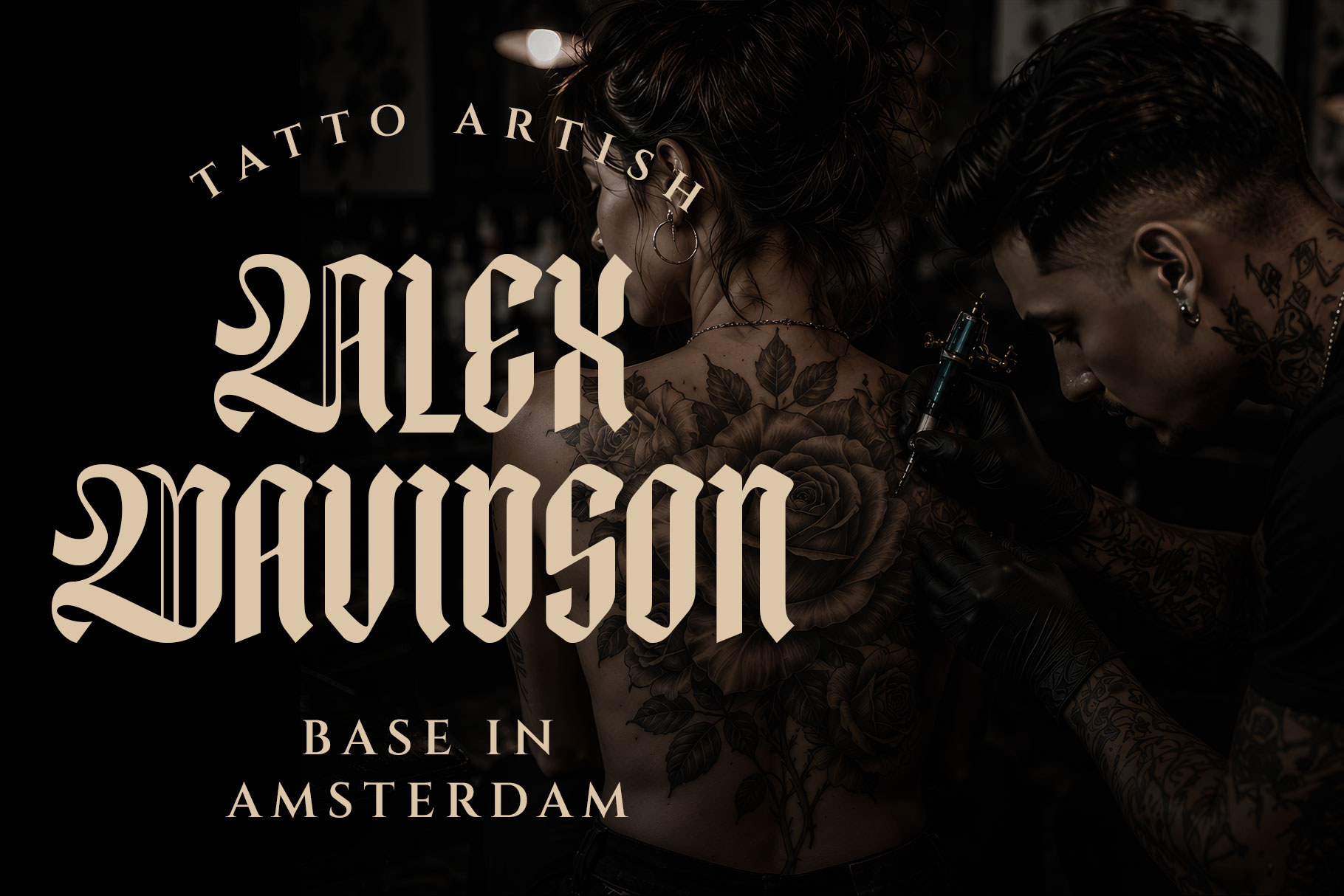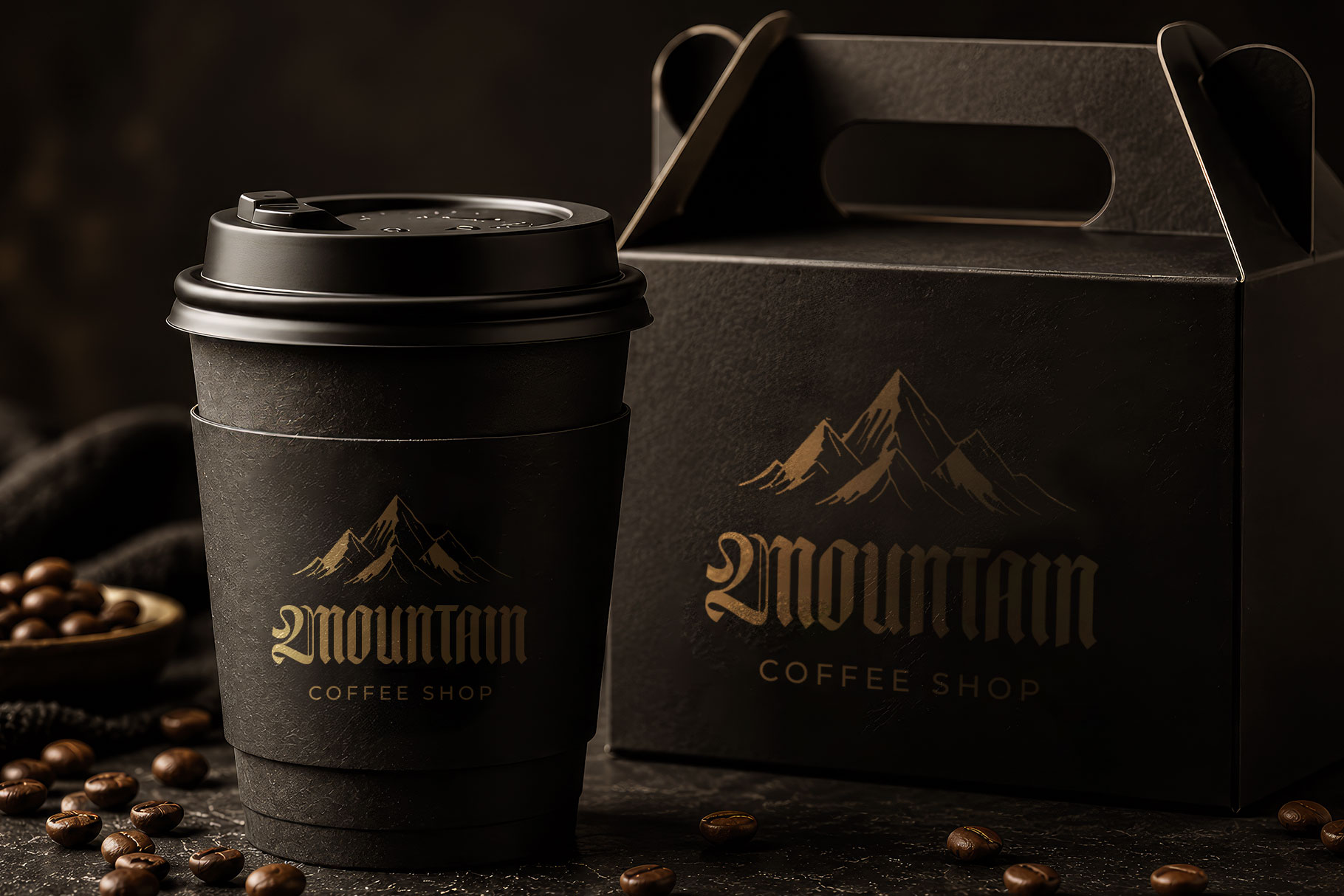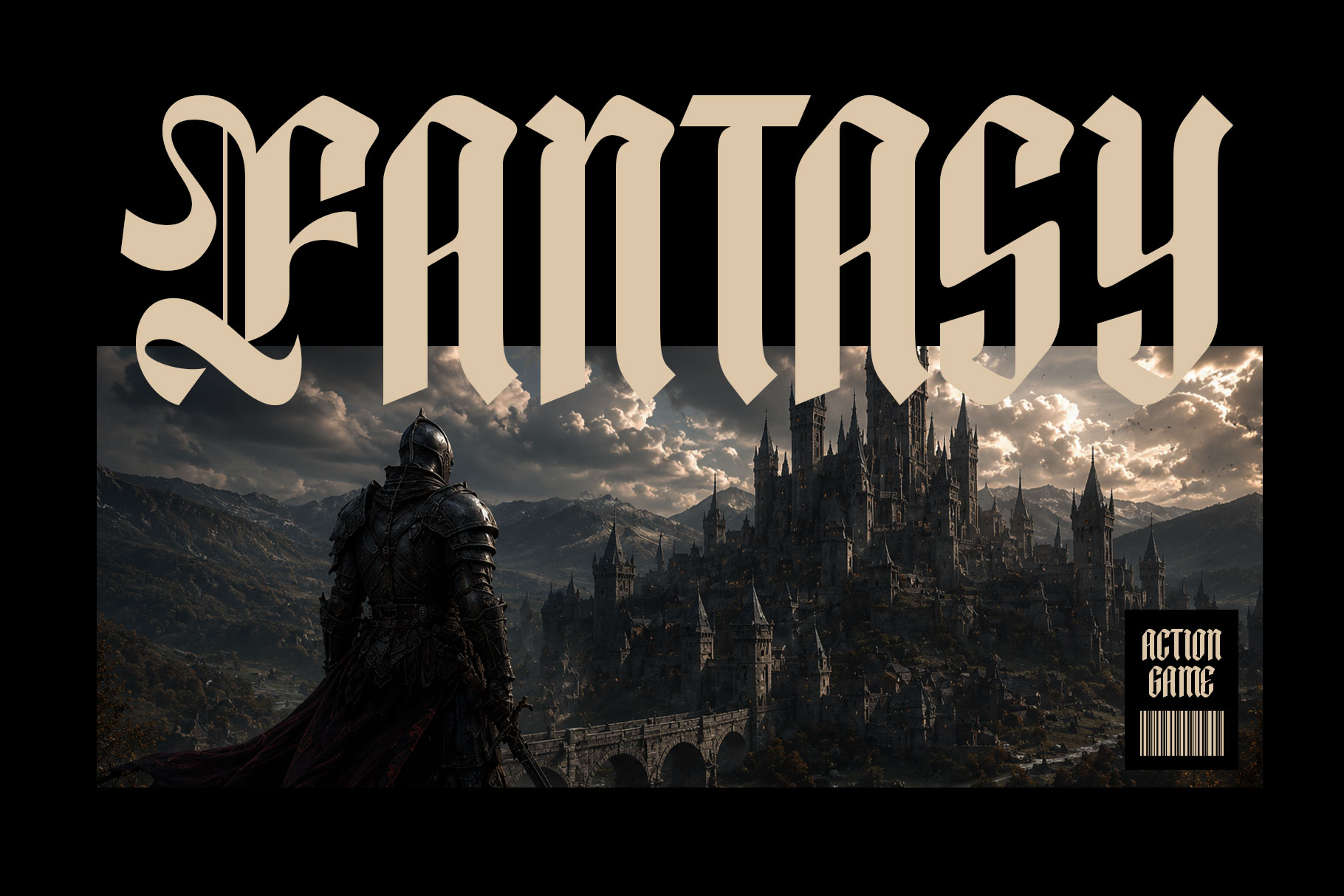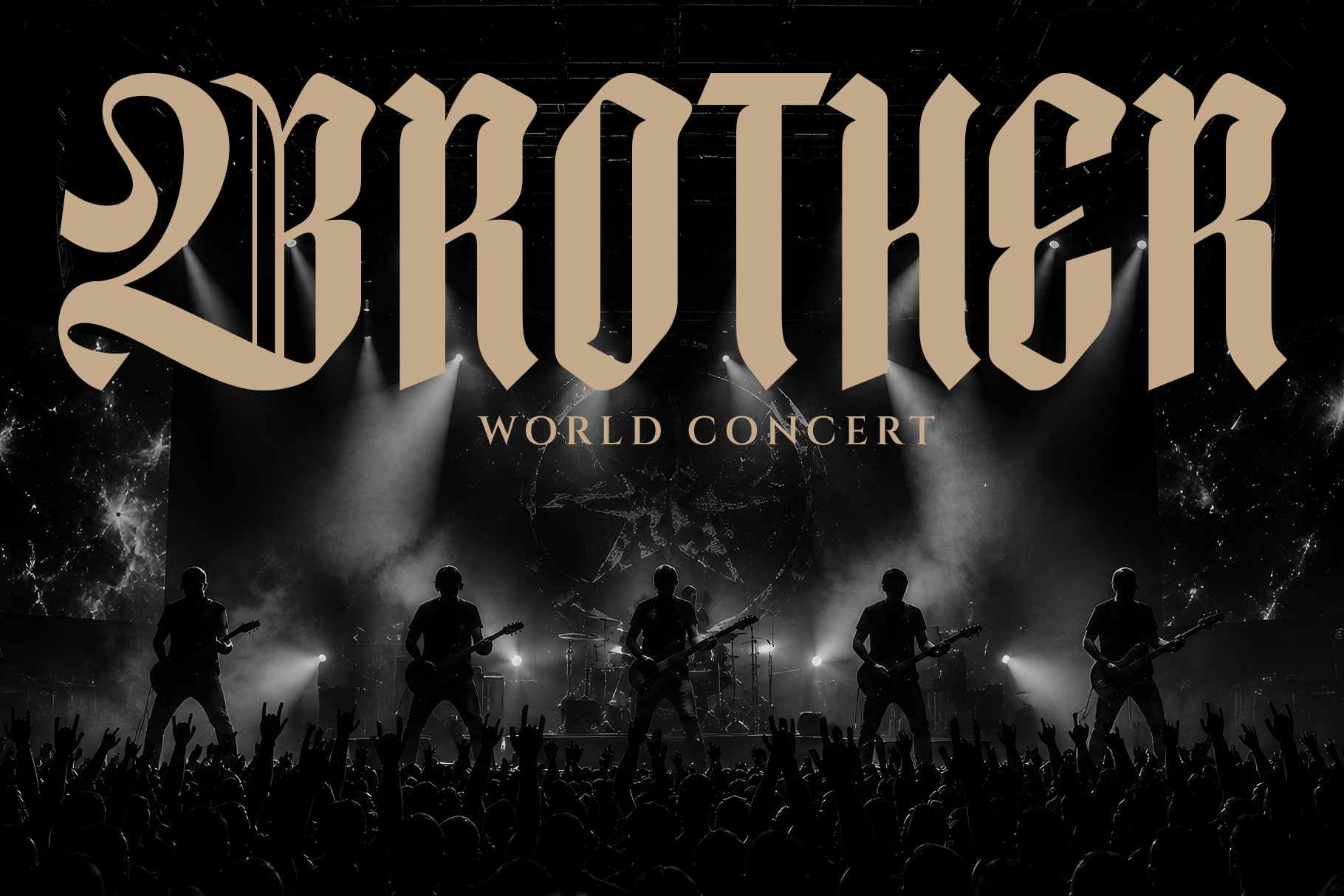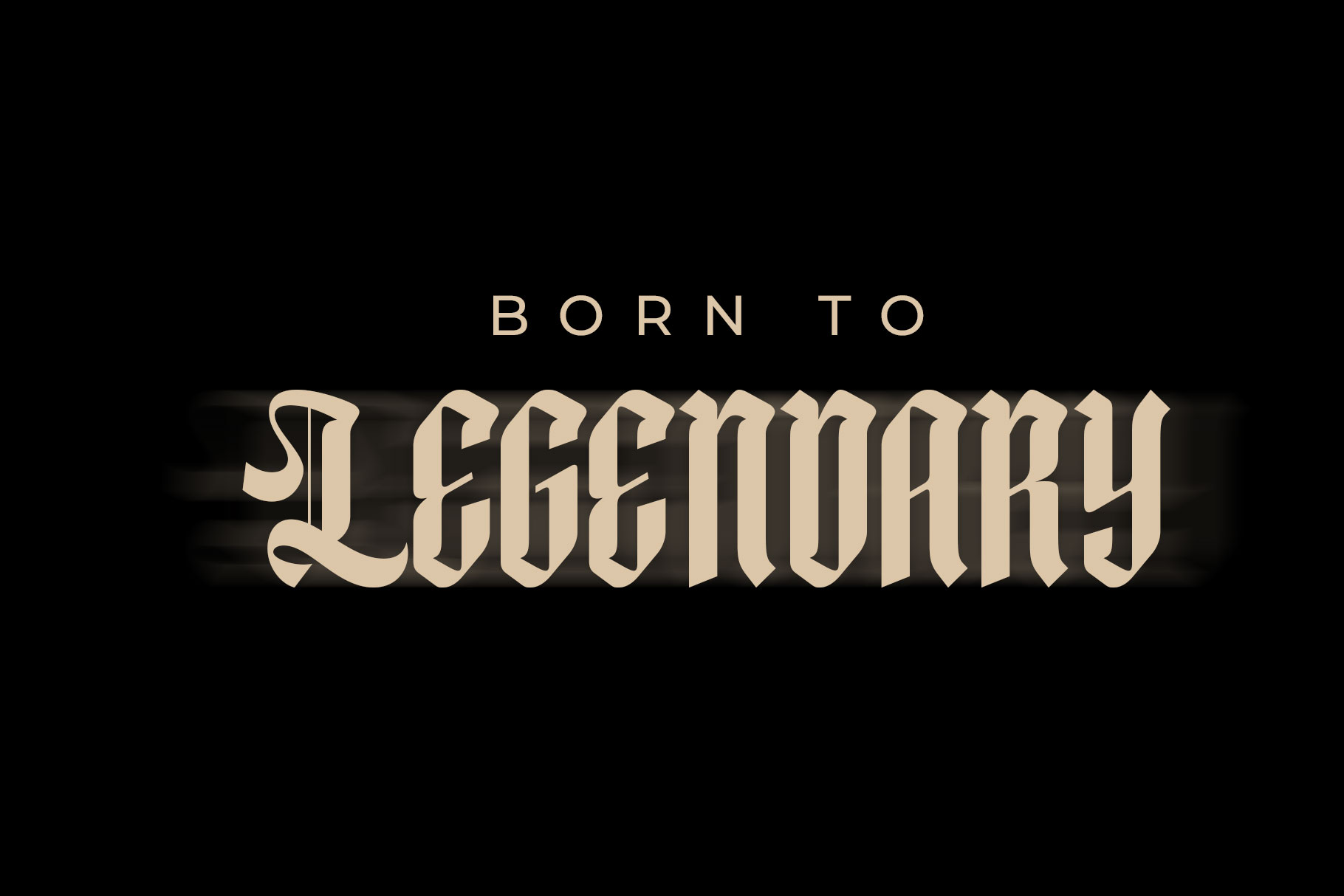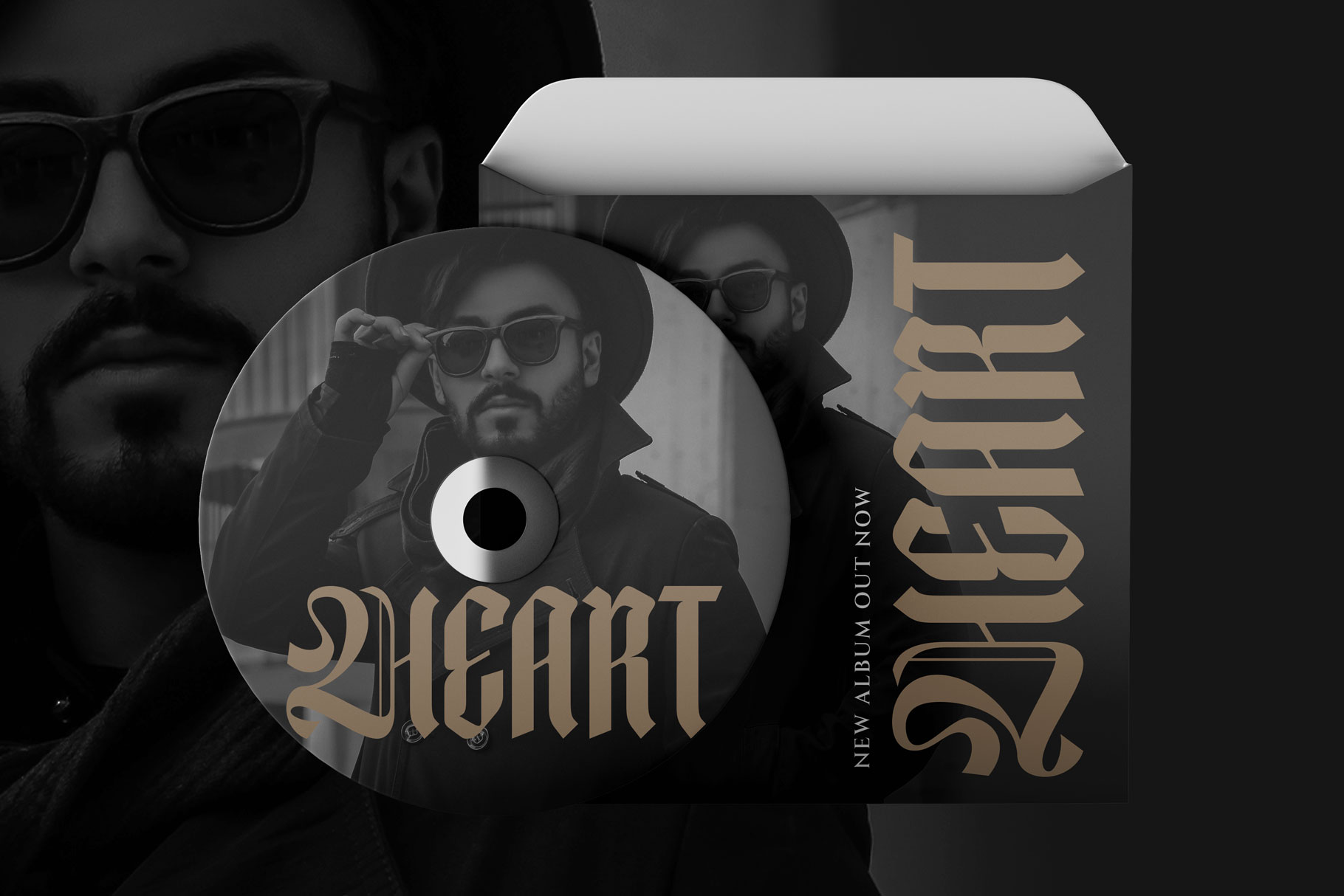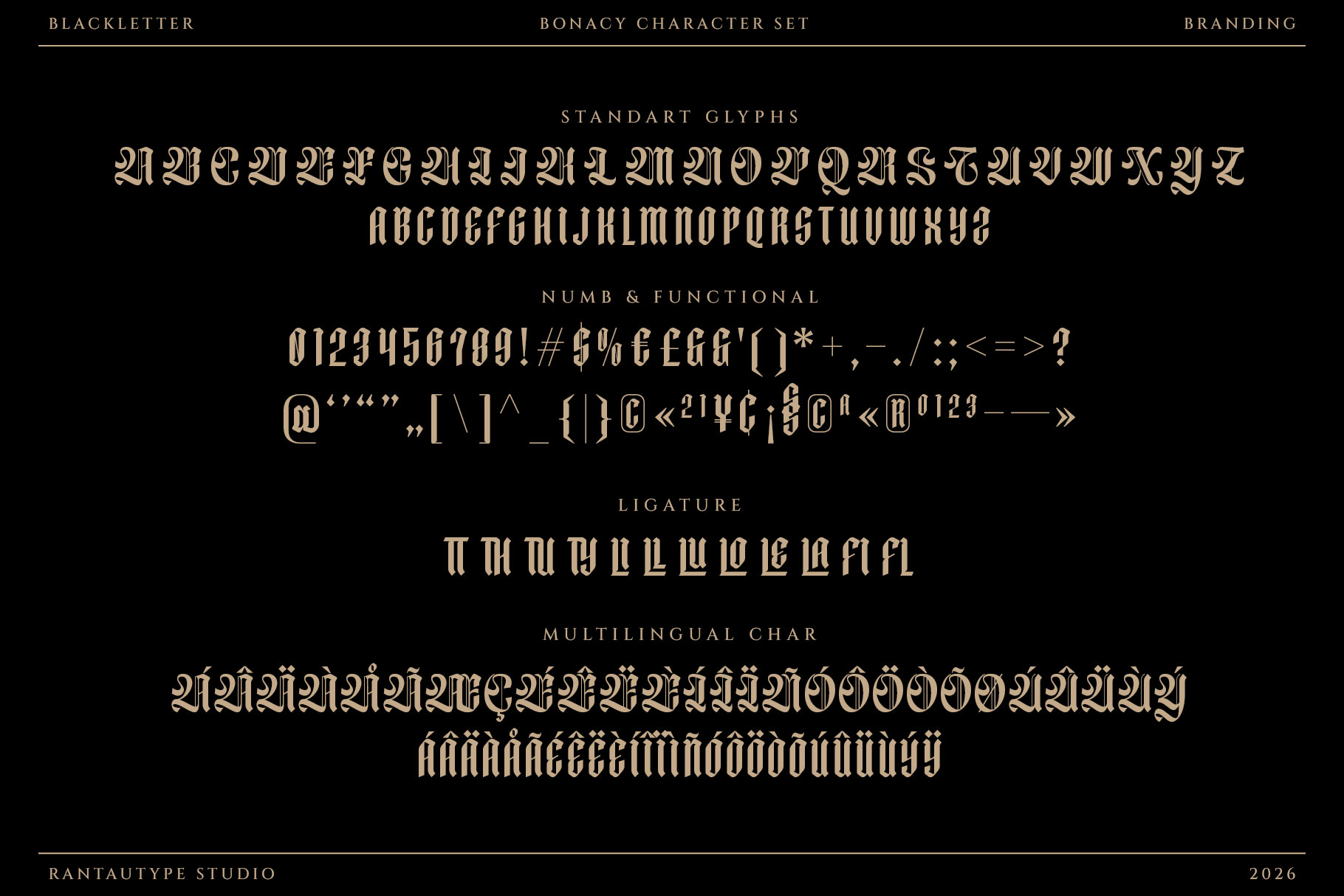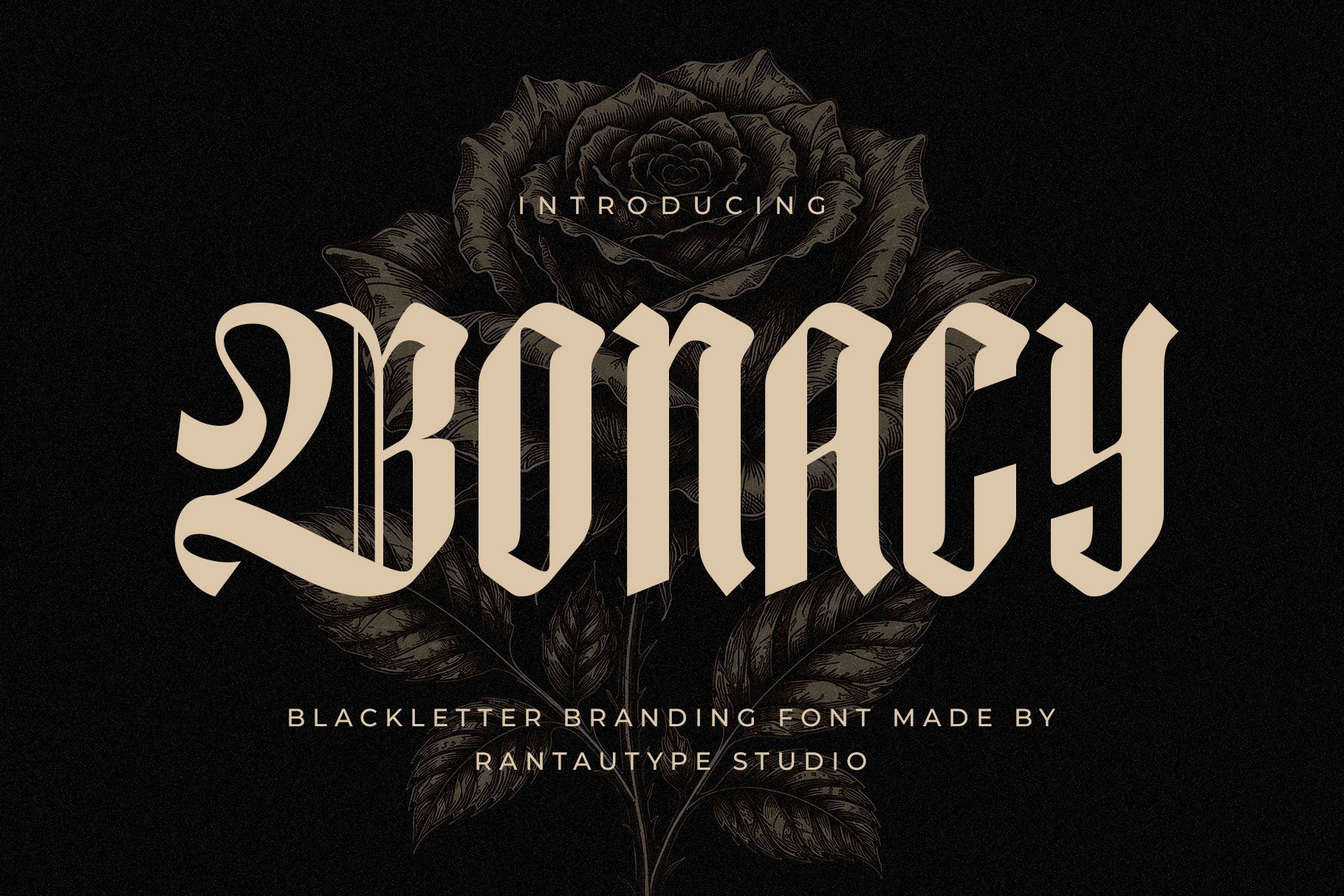
Bonacy is blackletter branding font blends traditional Gothic craftsmanship with a clean, contemporary structure, creating a distinctive display typeface that commands attention. Inspired by medieval manuscripts, Old English calligraphy, and historic European lettering, the font features tall vertical strokes, geometric proportions, and refined angular cuts that produce a bold yet sophisticated appearance.
Bonacy a perfectly choice for any creative endeavor, creating, modern, lifestyle design such as logotype, title, cover, branding, invitations, wedding designs, display and magazine, social media posts, advertisements, printed quotes, product packaging, corporate brand, product designs, labels, photography, watermarks, special events and any other project with blackletter touch.
Bonacy Blackletter Branding Font